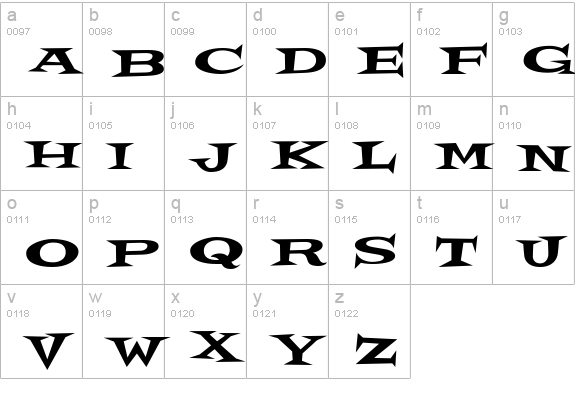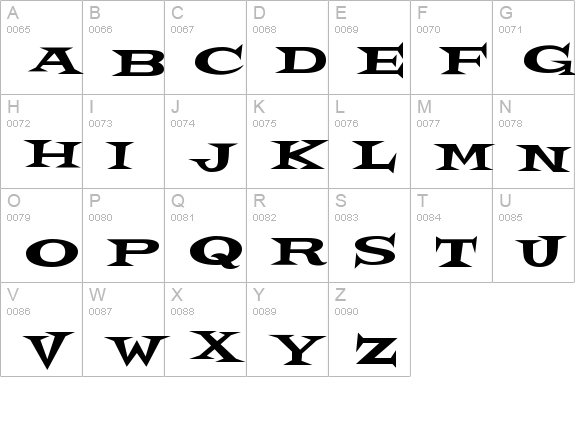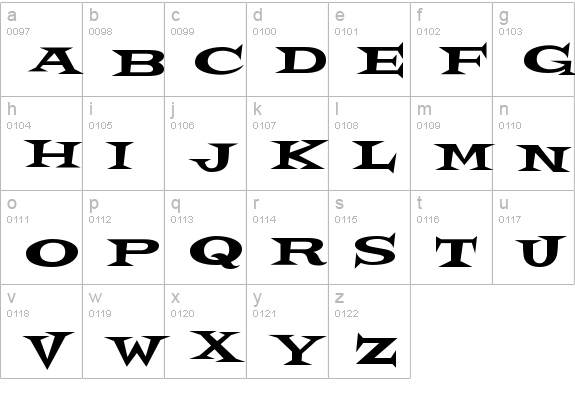
Crazy Loot BTN Font Details
Crazy Loot BTN font is a whimsical and eye-catching typeface that exudes a playful and fun vibe. With its bold and quirky design, this font is perfect for adding a touch of excitement to your projects. Whether you're creating posters, invitations, or social media graphics, Crazy Loot BTN font is sure to make a statement. The best part? Crazy Loot BTN font is available for free download at FontsMarket.com. You can easily access this unique font and elevate your designs with its distinctive charm. Don't miss out on the opportunity to add a dash of craziness to your creative endeavors with Crazy Loot BTN font!